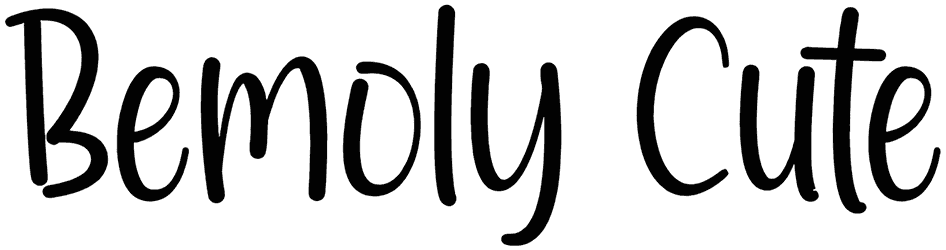
Bemoly Cute Font
Bemoly Cute, like other handwritten fonts, could be an excellent choice when you want to make something eye-catching, such as a logo, store banner, tattoo, or flyer. This casual and approachable, cute font will provide a…
Designed byFivetype Studio
Bemoly Cute, like other handwritten fonts, could be an excellent choice when you want to make something eye-catching, such as a logo, store banner, tattoo, or flyer. This casual and approachable, cute font will provide a professional touch to your work.